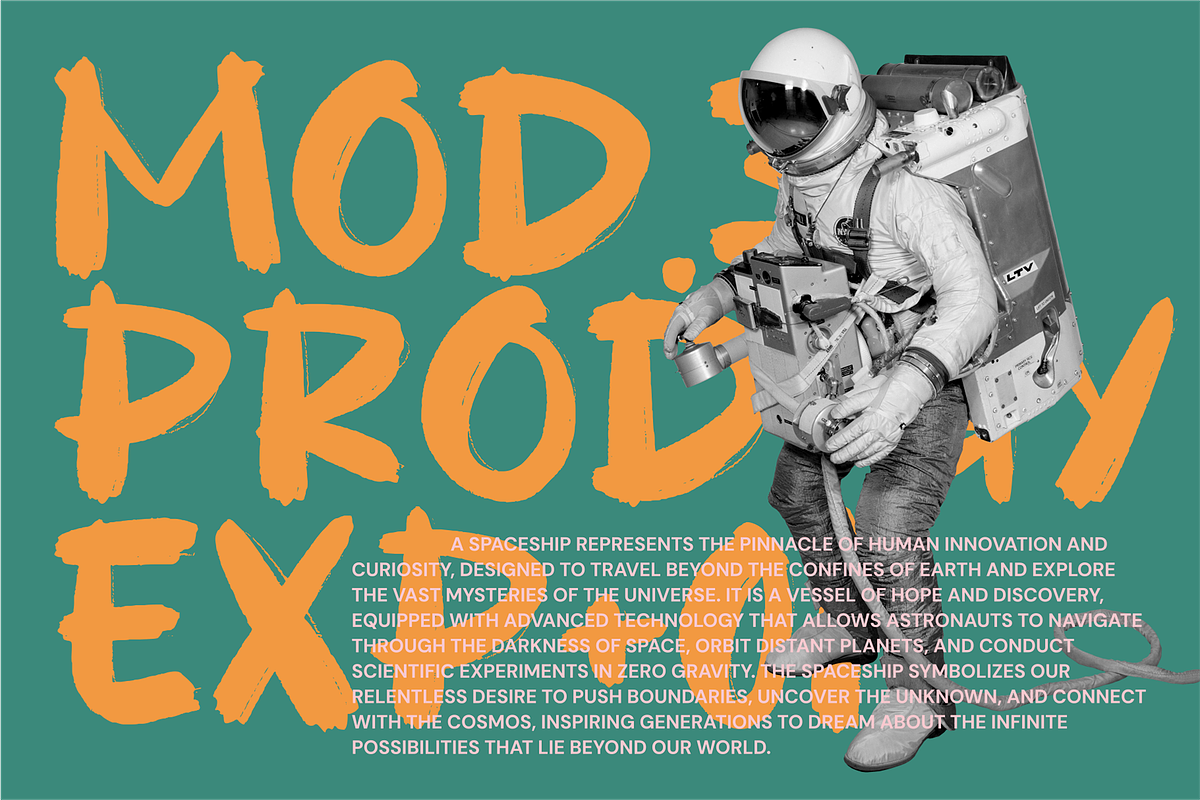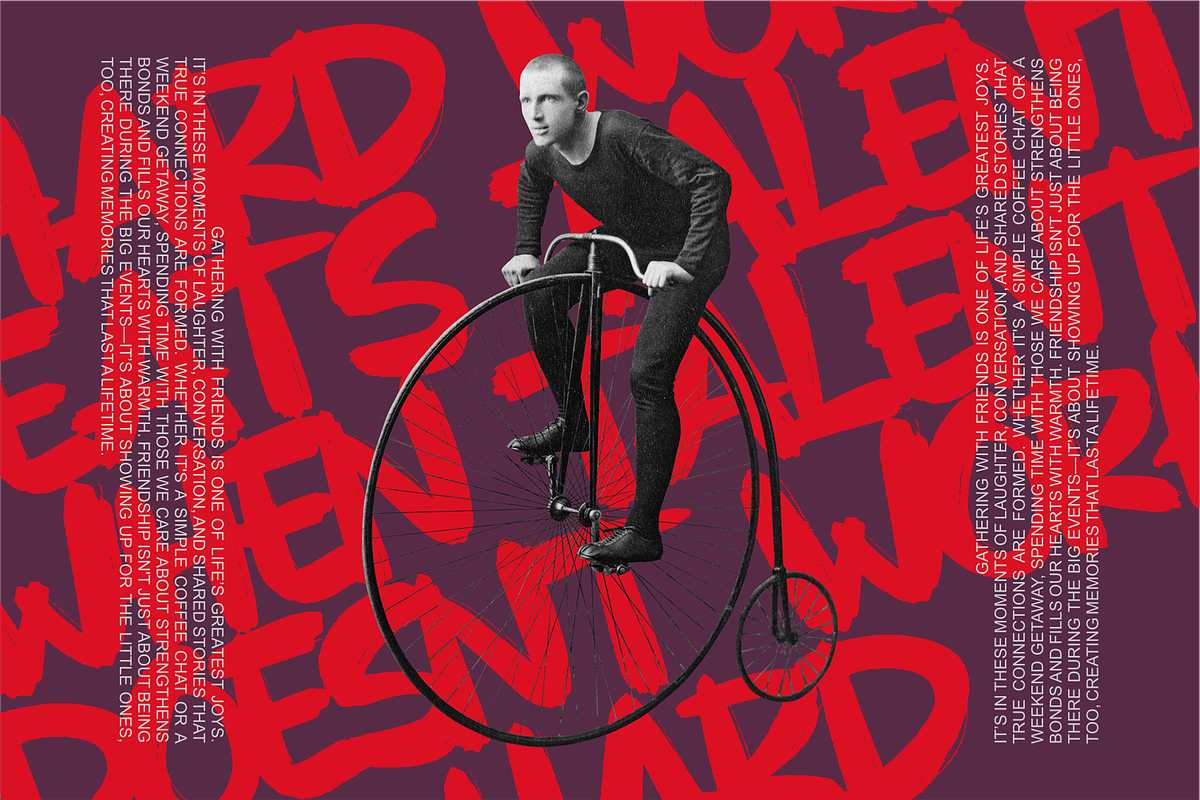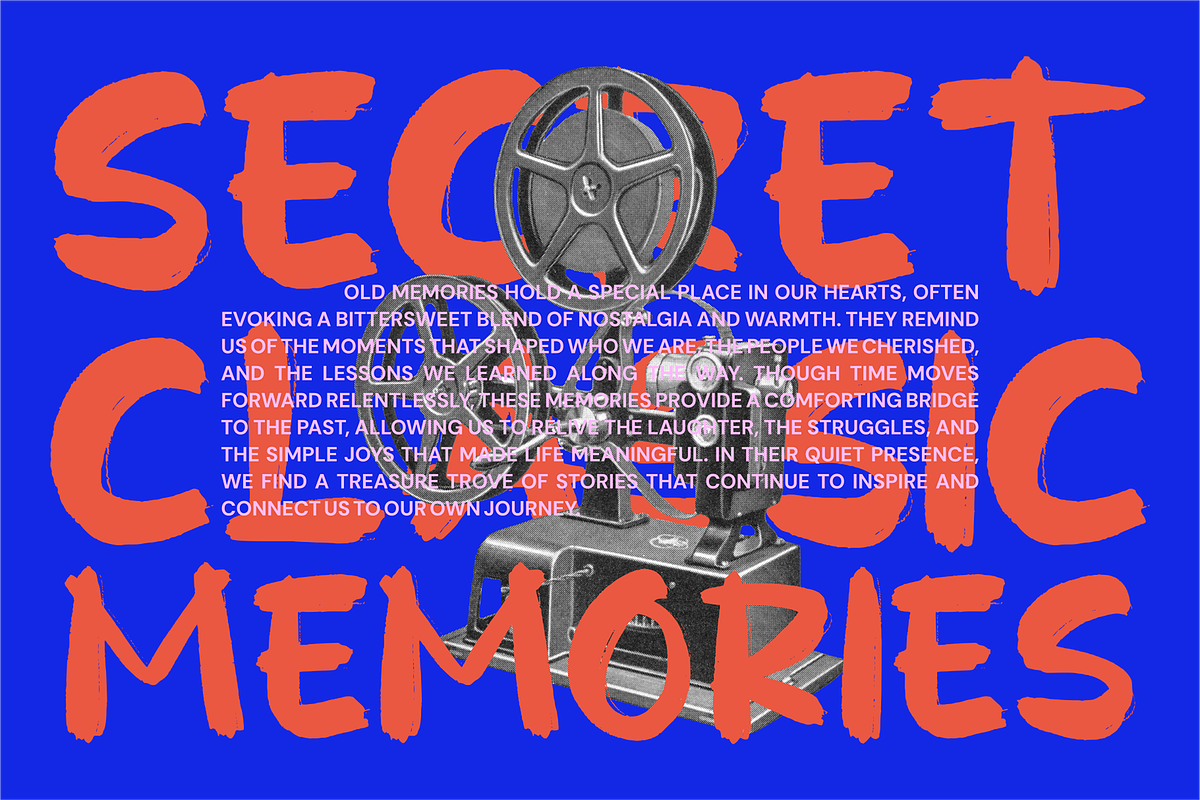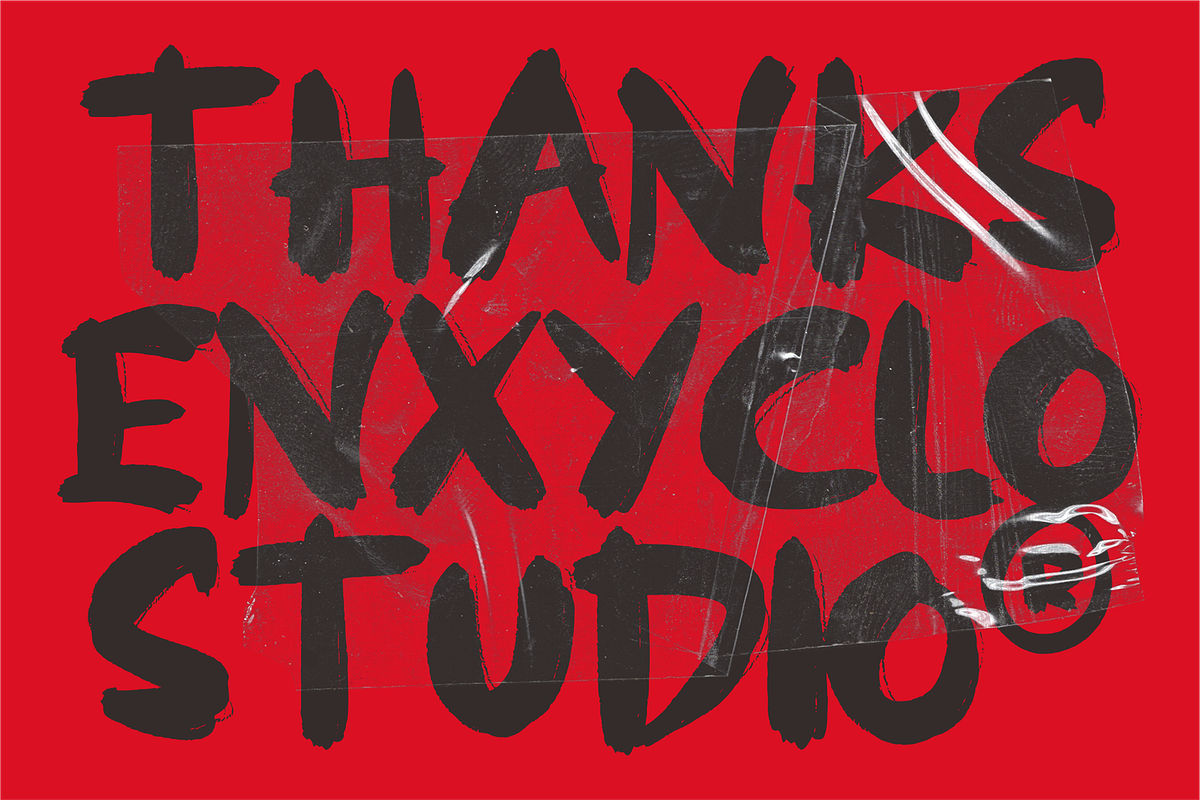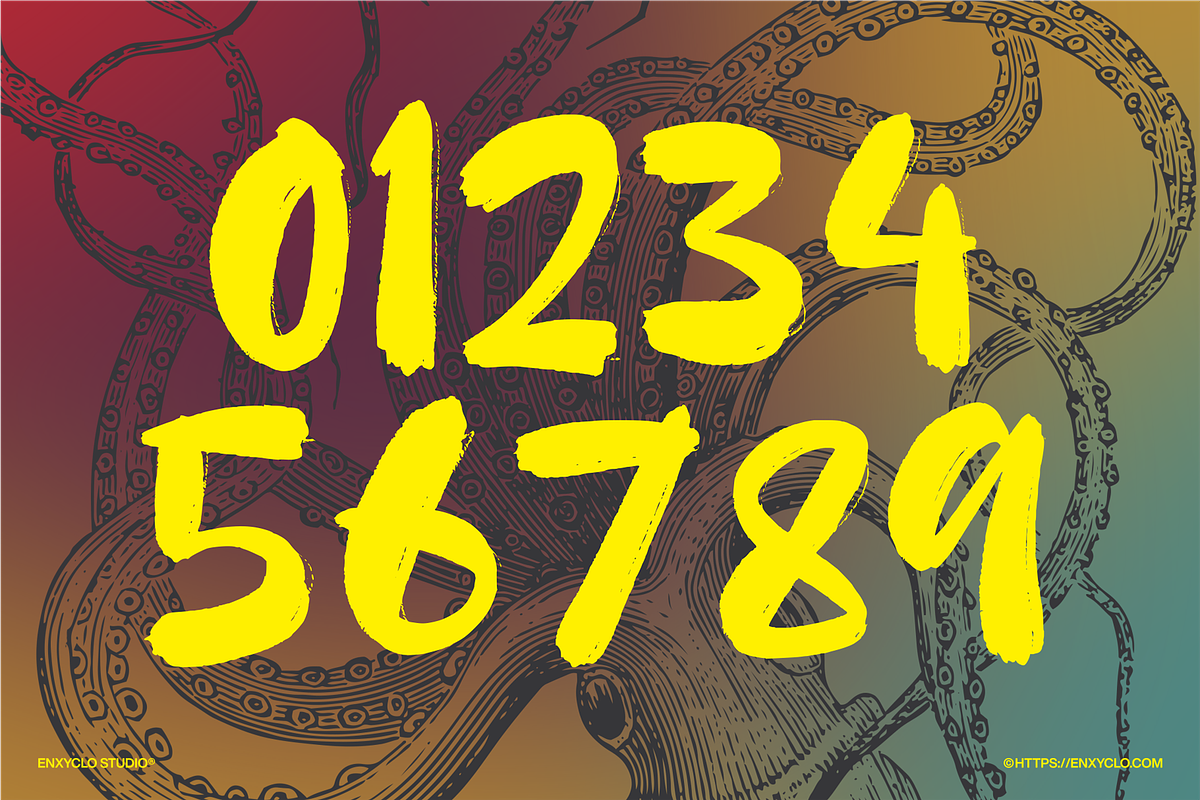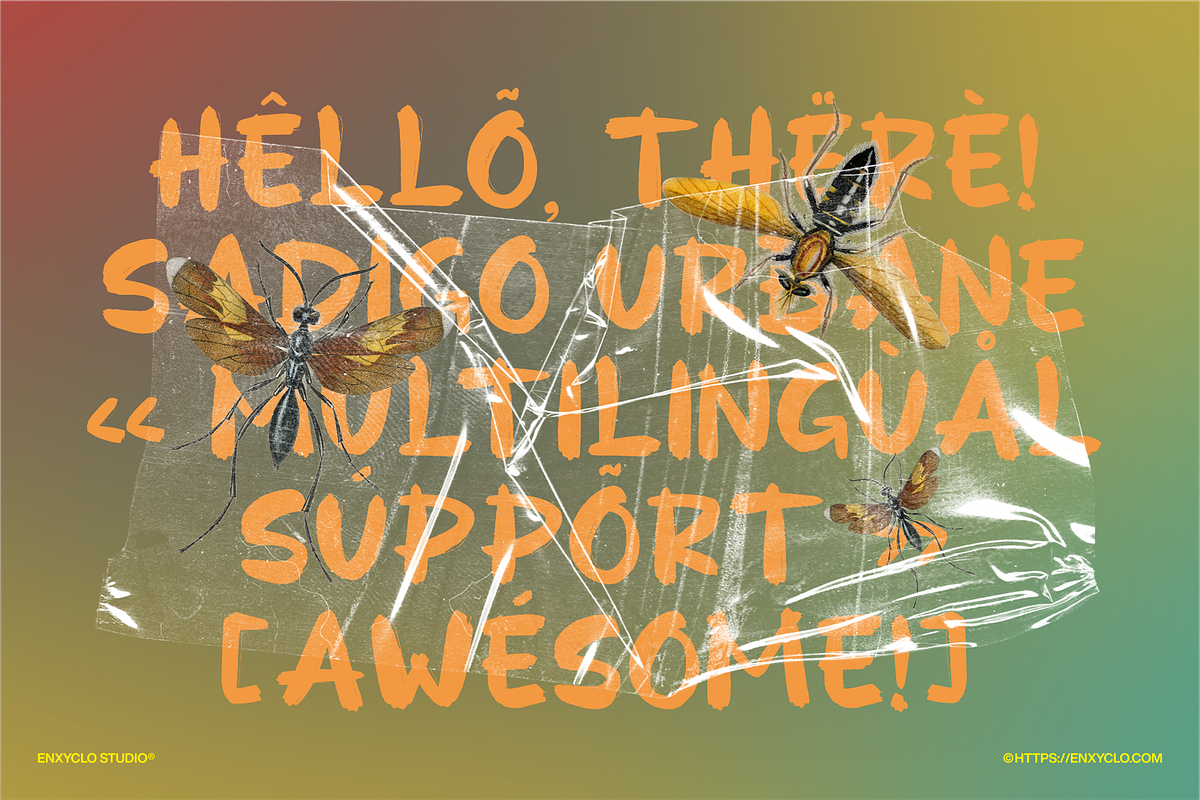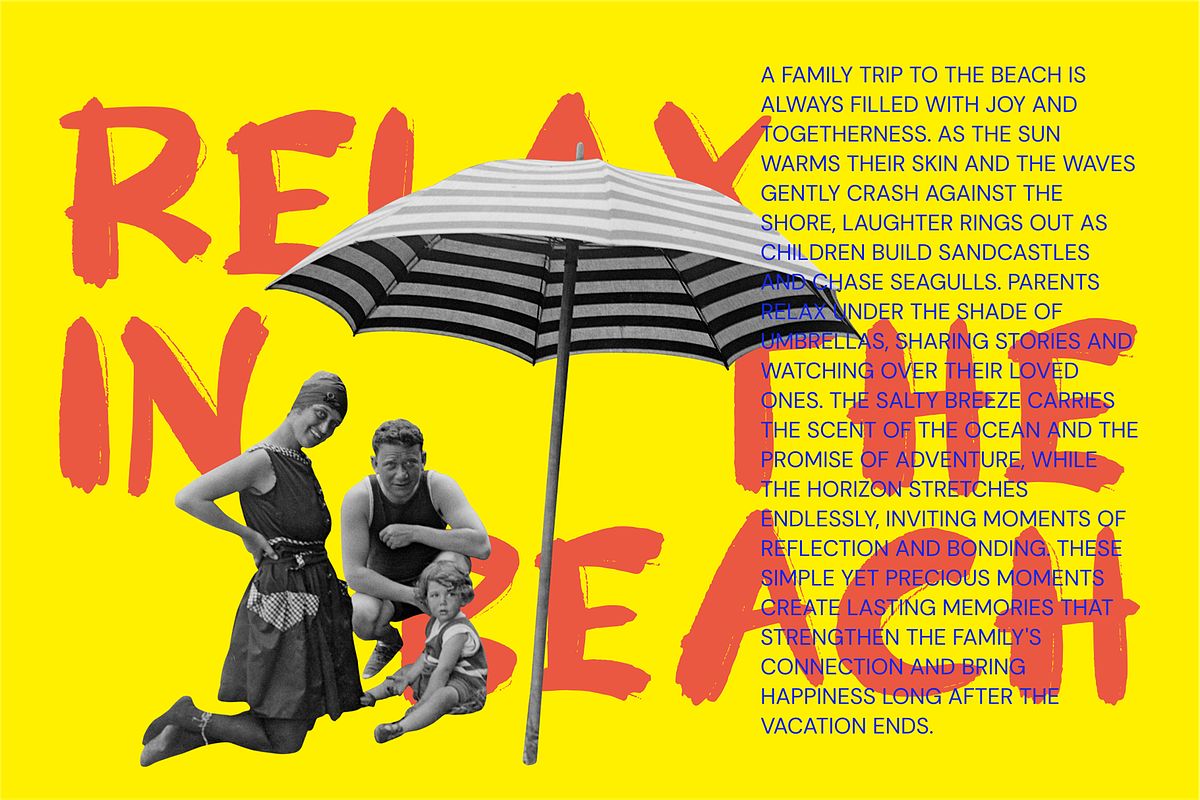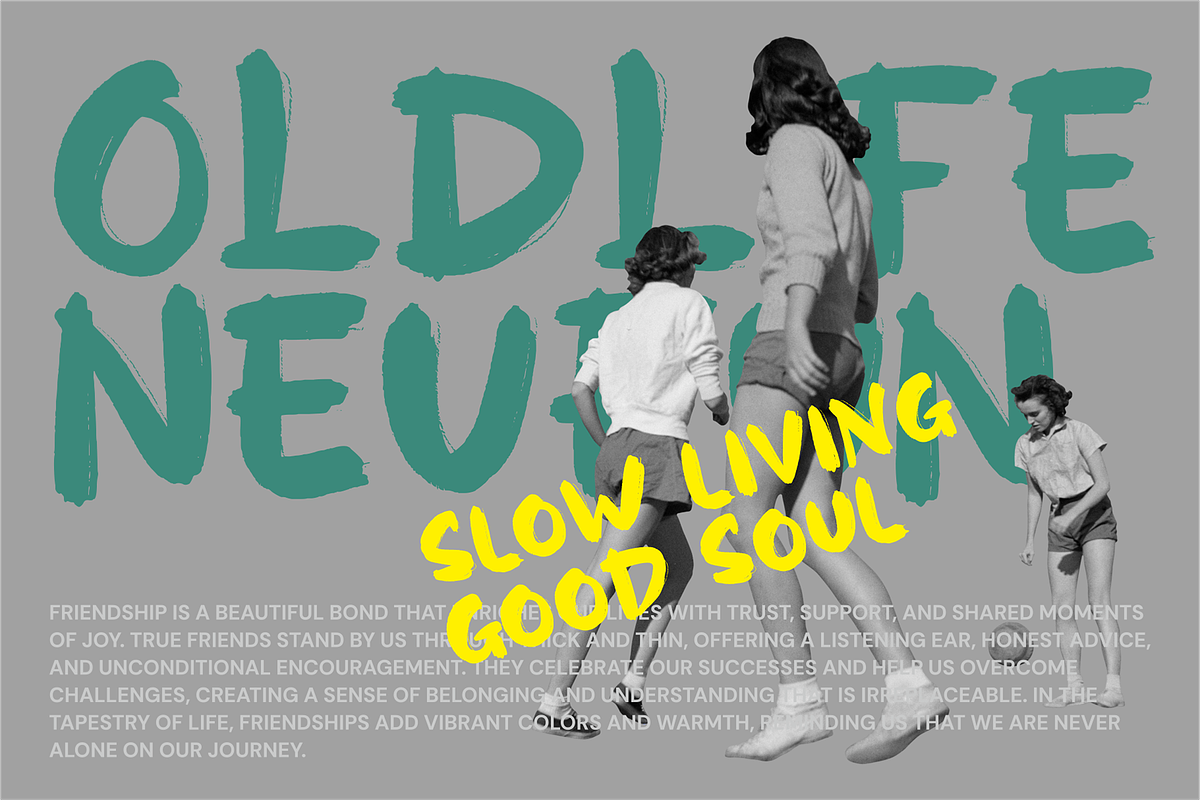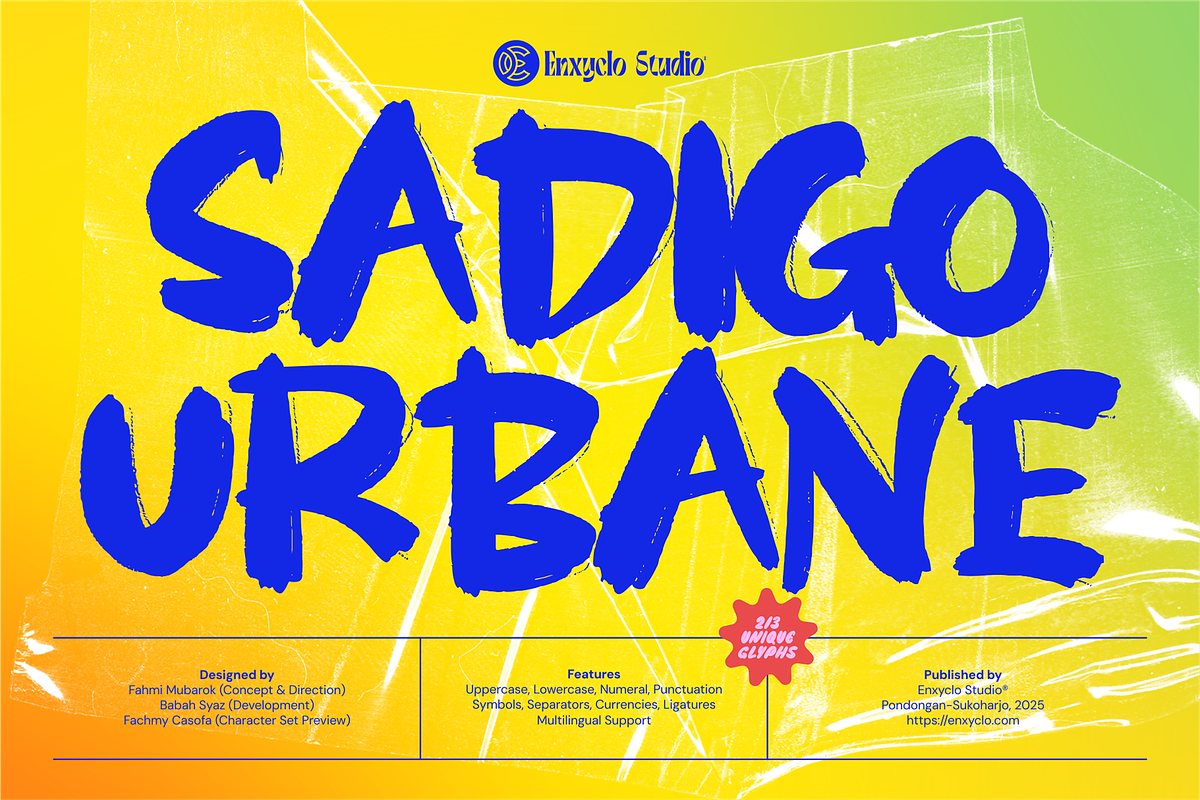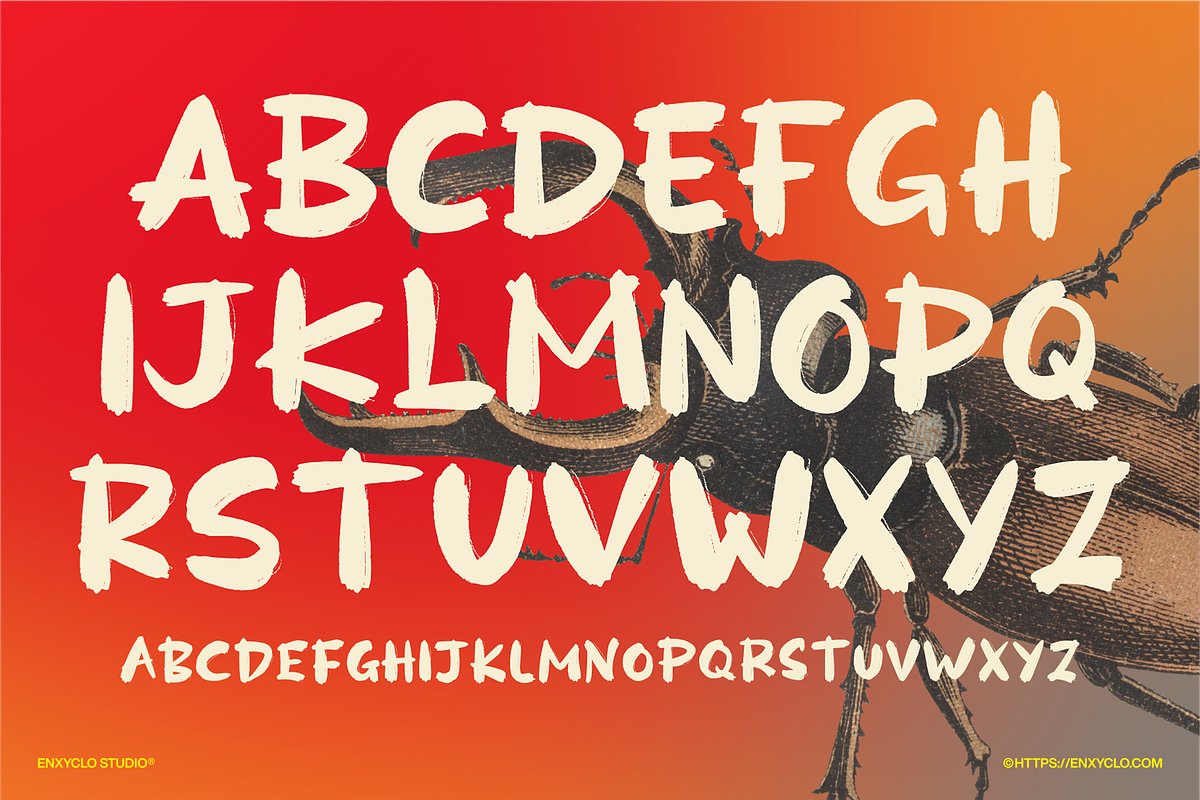
Sadigo Urbane - Rough Brush
Sadigo Urbane is a bold and dynamic brush script font that exudes an urban, edgy vibe with its rough and textured strokes. This versatile typeface combines strength with artistic flair, making it perfect for eye-catching headlines, branding, posters, and packaging designs that demand attention. Featuring smooth flow and a handcrafted appearance, Sadigo Urbane adds a contemporary, rebellious touch while maintaining legibility and style, ideal for creatives looking to bring energy and personality to their projects.
- 213 Unique Glyphs
- Uppercase and Lowercase Letters
- Symbols, Separators, and Currency Signs
- Ligatures for Natural Letter Connections
- Rough, Textured Brush Script Style
Perfect for
- Urban Branding
- Posters and Flyers
- Packaging Design
- Logo and Headline Design
- Music and Entertainment Promotions
- Social Media Graphics
- Artistic and Creative Projects